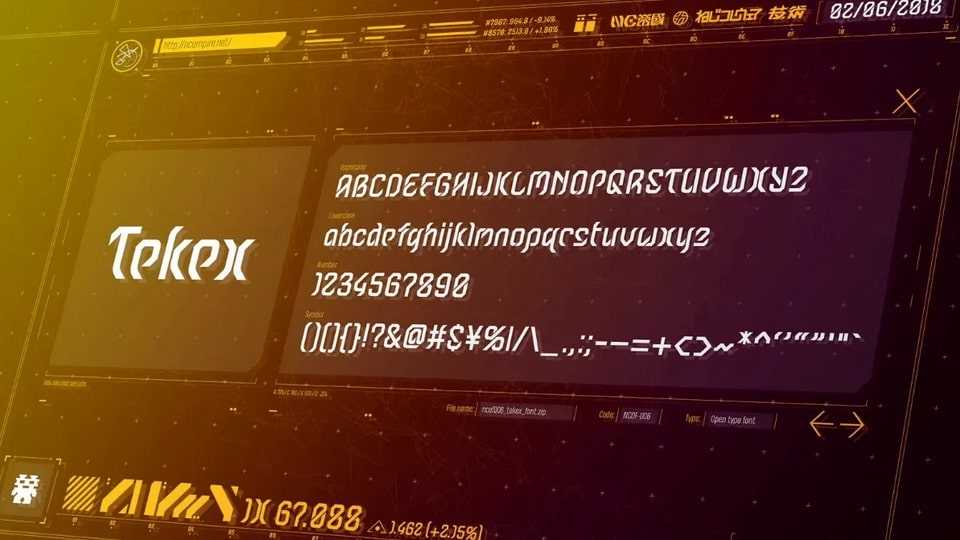
Download Tekex font, a cyber and futuristic display typeface with a modular geometric base. With its distinctive technical look Tekex font is perfect for sci-fi logos and titles, games and web.